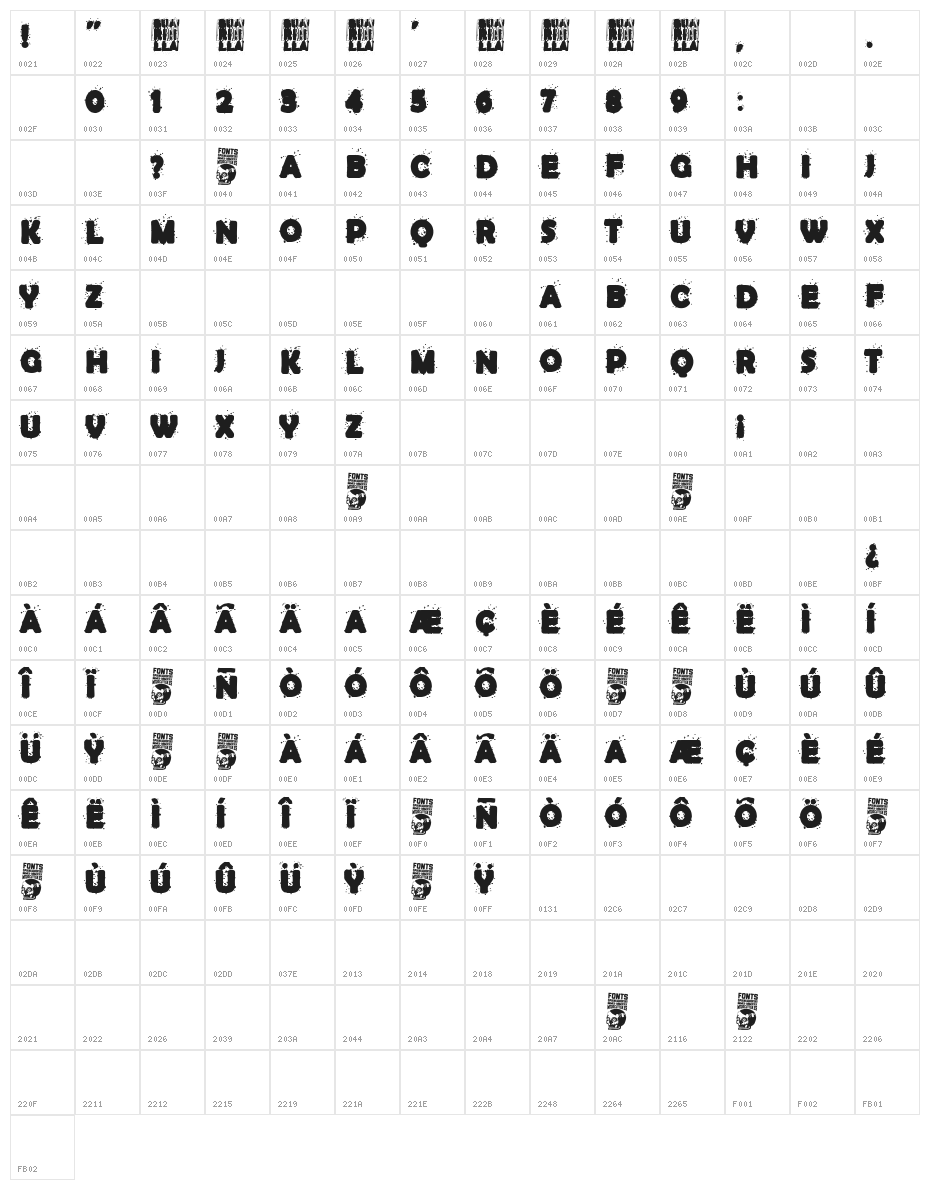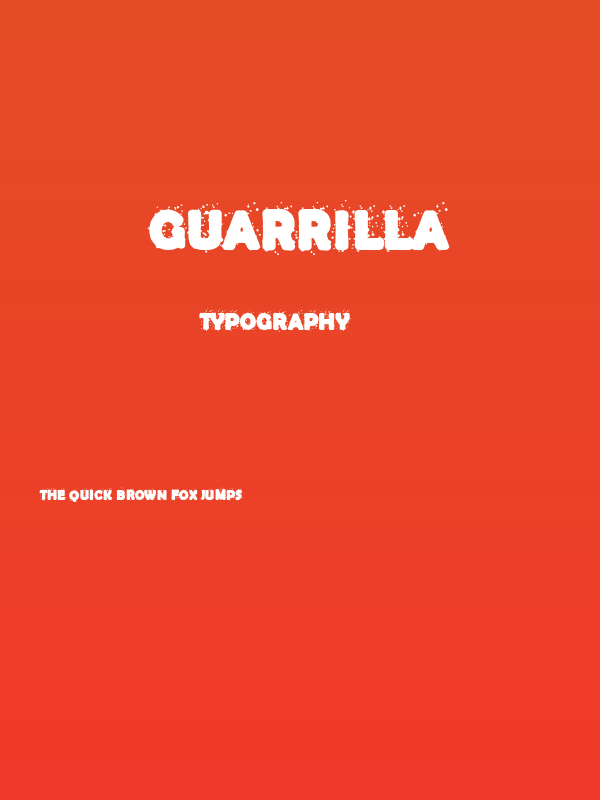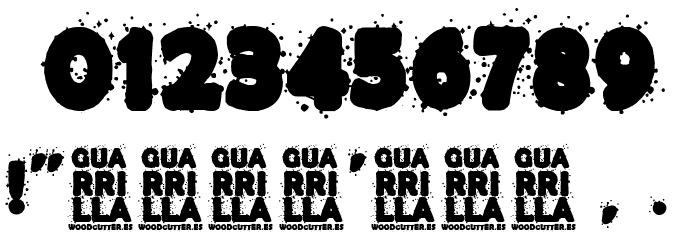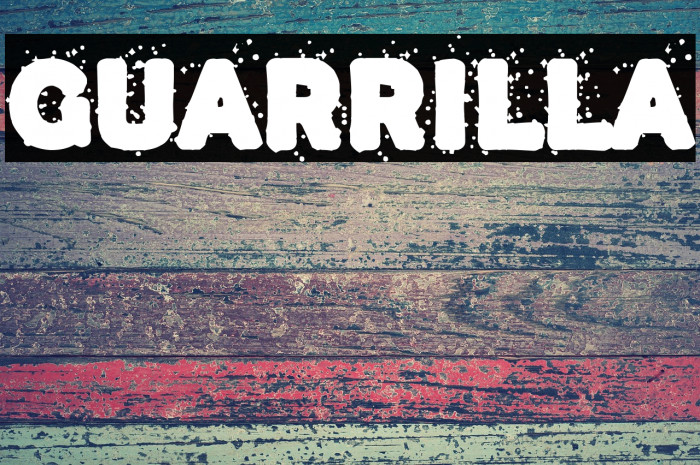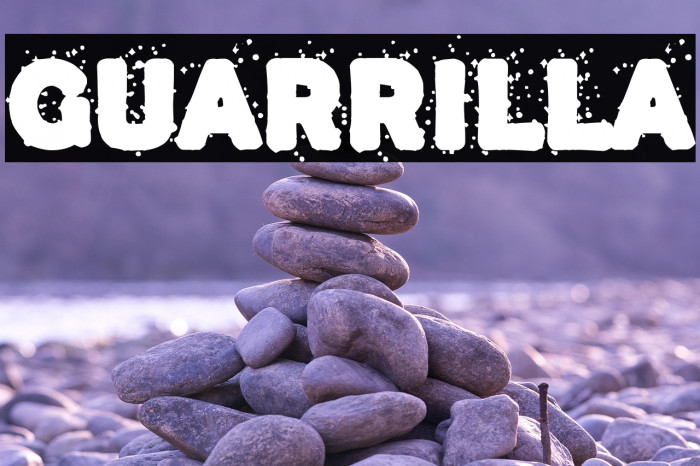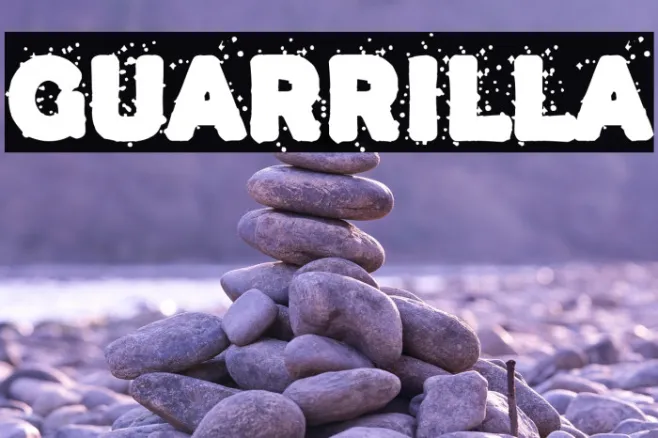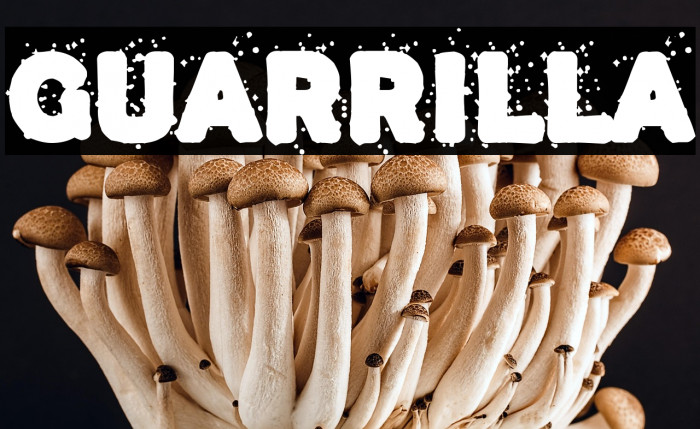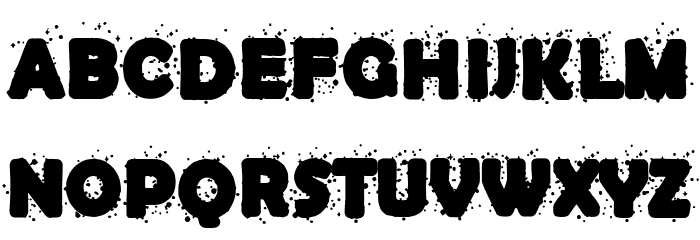
Guarrilla Font
Guarrilla Description
This font features a bold and rugged design with a distressed, splattered effect that gives it a gritty, urban feel. The characters are thick and heavy, creating a strong visual impact. The irregular edges and splatter marks add a sense of movement and dynamism, making it ideal for projects that require a raw and edgy aesthetic. The uppercase and lowercase letters maintain a consistent style, while the numbers and special characters complement the overall look. This font is perfect for designs that aim to capture attention and convey a sense of rebellion or nonconformity.
GUARRILLA UPPERCASE
GUARRILLA LOWERCASE
GUARRILLA OTHER CHARS
| Overall Style | Urban, Edgy, Distressed |
| Use Case | Headlines, Posters, Logos |
| Proposed Projects | Ideal for street art designs, music album covers, posters, and edgy branding projects. |